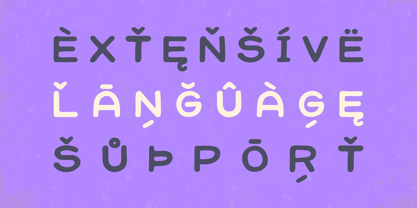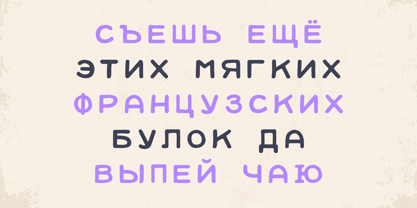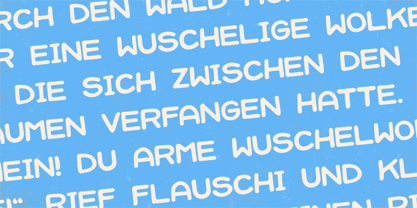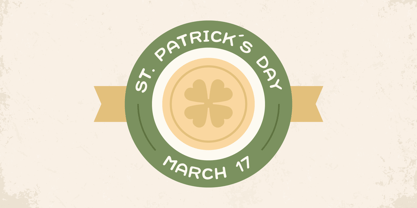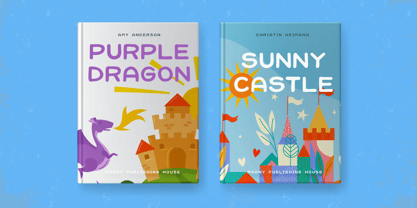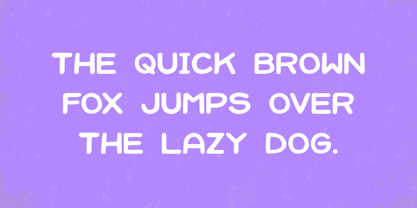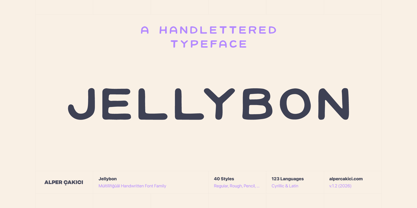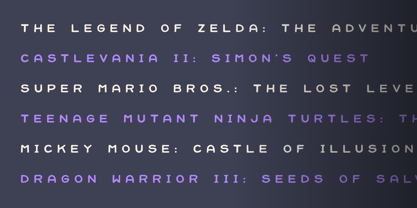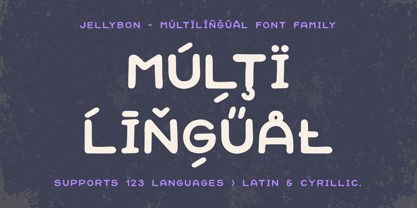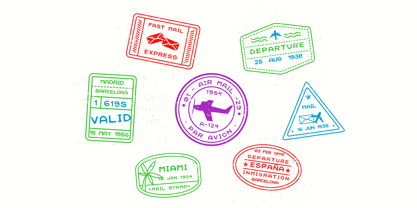
Jellybon
The Jellybon Font Family was designed by Alper Çakıcı and published by AlperCakici. Jellybon contains 40 styles and family package options. More about this family
Meet Jellybon, a large and versatile handwritten typeface family designed to bring joy, texture, and personality into your typography. Rooted in handmade lettering and inspired by a wide range of natural tools and drawing styles, Jellybon embraces imperfection while maintaining strong readability and flexibility. From smooth regular strokes to chalky, waxy, rough, eroded, and brush-driven textures—plus angular and liner interpretations—Jellybon offers an expansive system of styles. The inclusion of outline versions and matching italics across families makes it especially powerful for layered typography, bold headlines, and eye-catching compositions. Whether you’re building a playful brand identity, designing posters or packaging, creating editorial layouts, or crafting expressive social media visuals, Jellybon delivers a genuine handwritten voice with modern versatility for both print and digital use. ✨ Why Choose Jellybon? 40 Distinct Styles: A rich collection including Regular, Italic, Brush, Chalk, Pencil, Wax, Rough, Eroded, Graphite, Angular, Liner, and Outline variations—with matching italics and outlines. Handmade Character: Organic strokes, lively rhythm, and natural imperfections for authentic handwritten expression. Creative Flexibility: Ideal for branding, posters, packaging, editorial design, logos, headlines, and artistic projects. Layer & Experiment: Outline styles make Jellybon perfect for layered type, highlights, and bold visual systems. Multilingual Support: Covers 123 languages with extensive Latin + Cyrillic support.